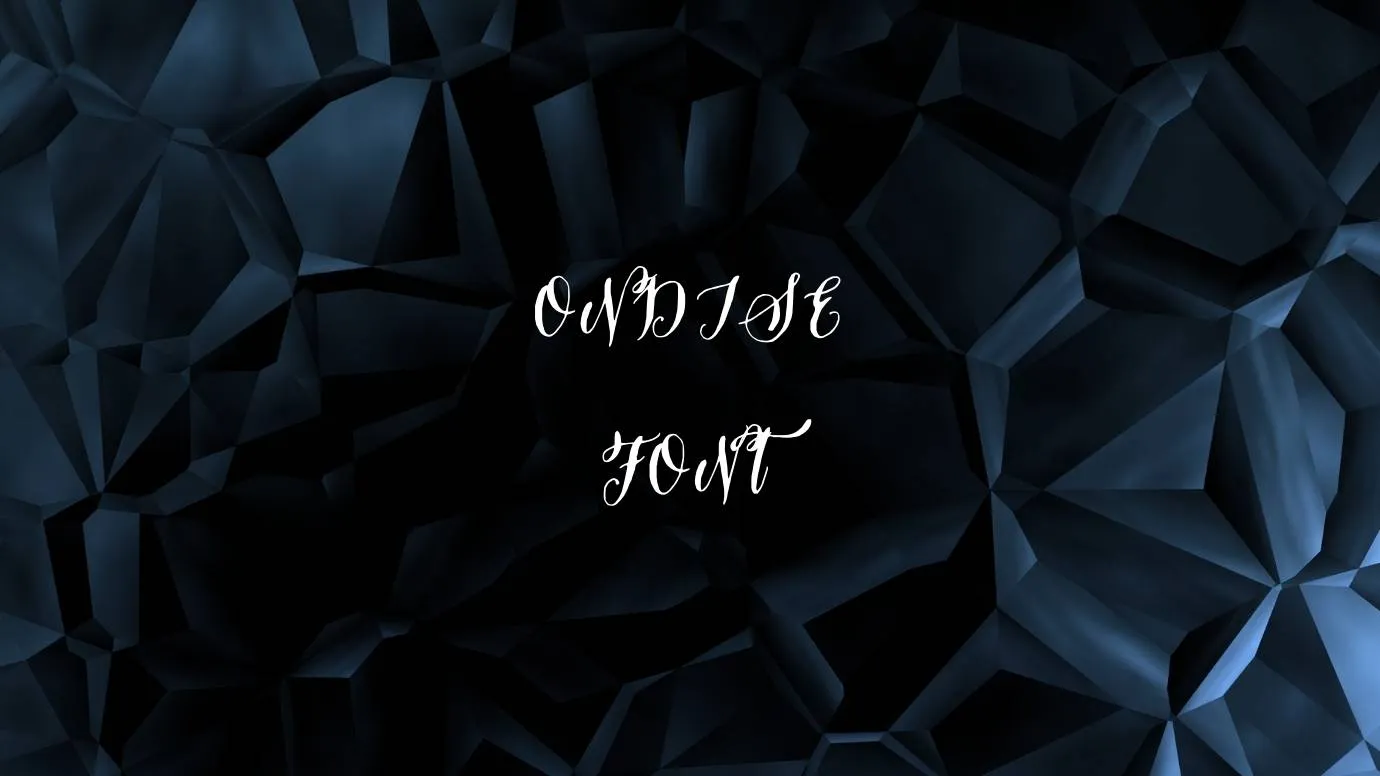
Ondise Font Family is a curvy and warm typeface. It belongs to the calligraphy script typeface family with a natural and dancy baseline. It was designed in 2013 by Jessica McCarty and published through Magpie Paper works.
This amazing script typeface consists of four weights including regular, italic, bold, and heavy. Besides, the font has been designed with help of a pointer pen using ink. It gives to designs a very gorgeous handwritten feel when used with the combination of Exo font.